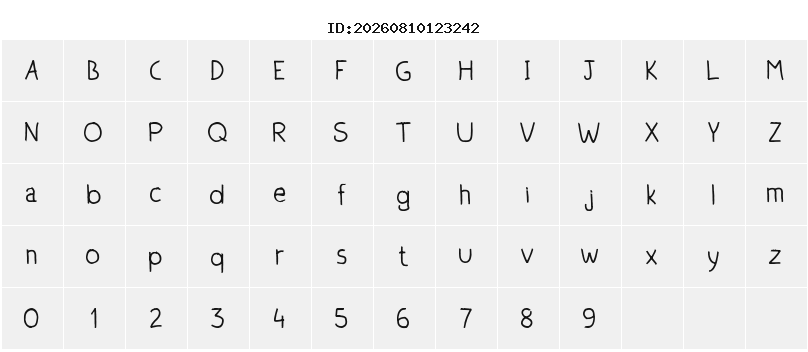
Quixeramobim Preview
• Font Name: Quixeramobim
• Font ID: Fontographer 4.7 Quixeramobim Normal
• Full Font Name: Quixeramobim Normal
• Version: Fontographer 4.7 01.12.09 FG4M­0000002998
• PostScript Name: QuixeramobimNormal
About Quixeramobim.ttf
Quixeramobim.ttf is a modern, elegant sans-serif font designed for ultimate readability and visual harmony. Perfect for branding, headlines, web design, and print materials.